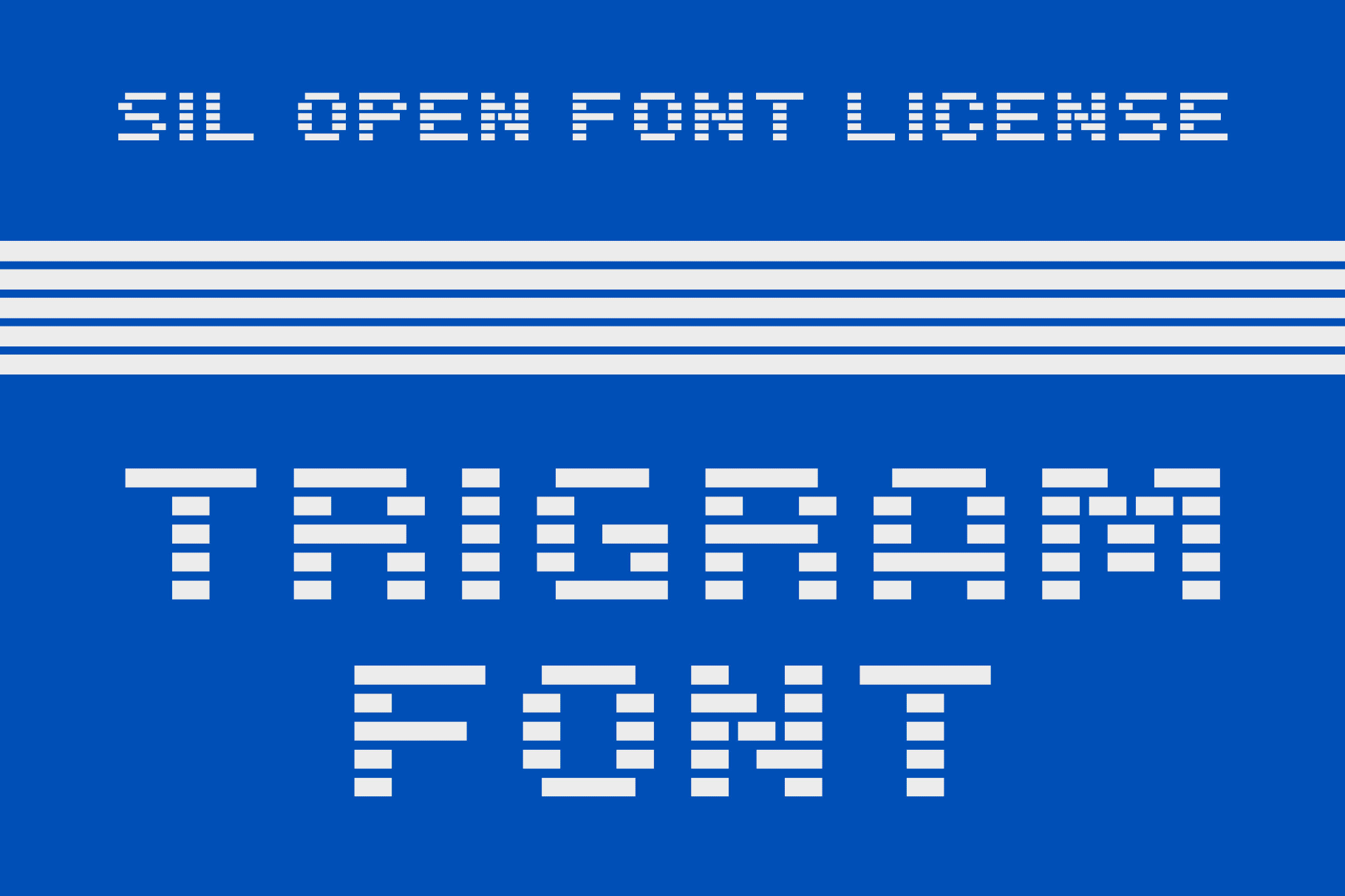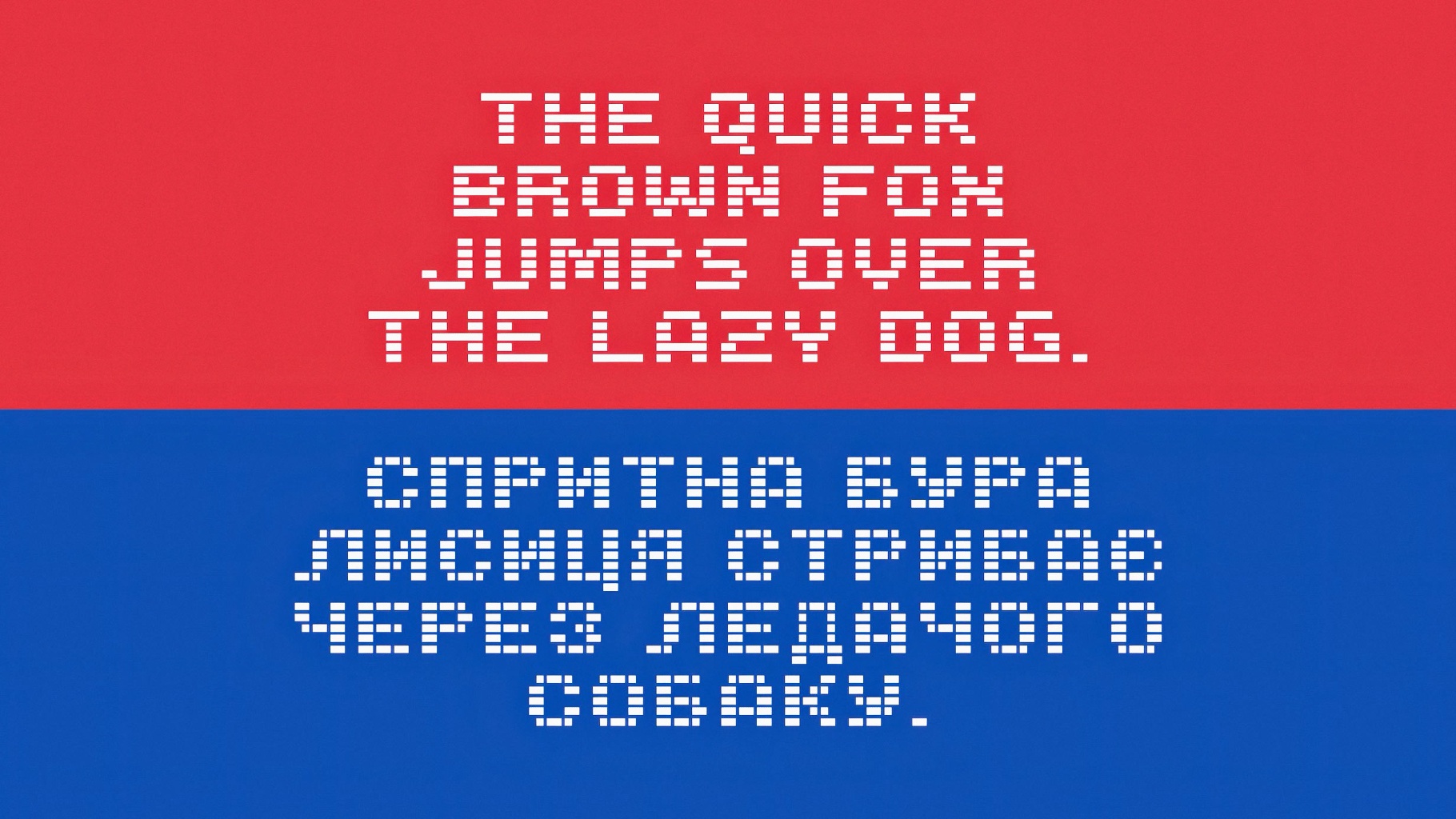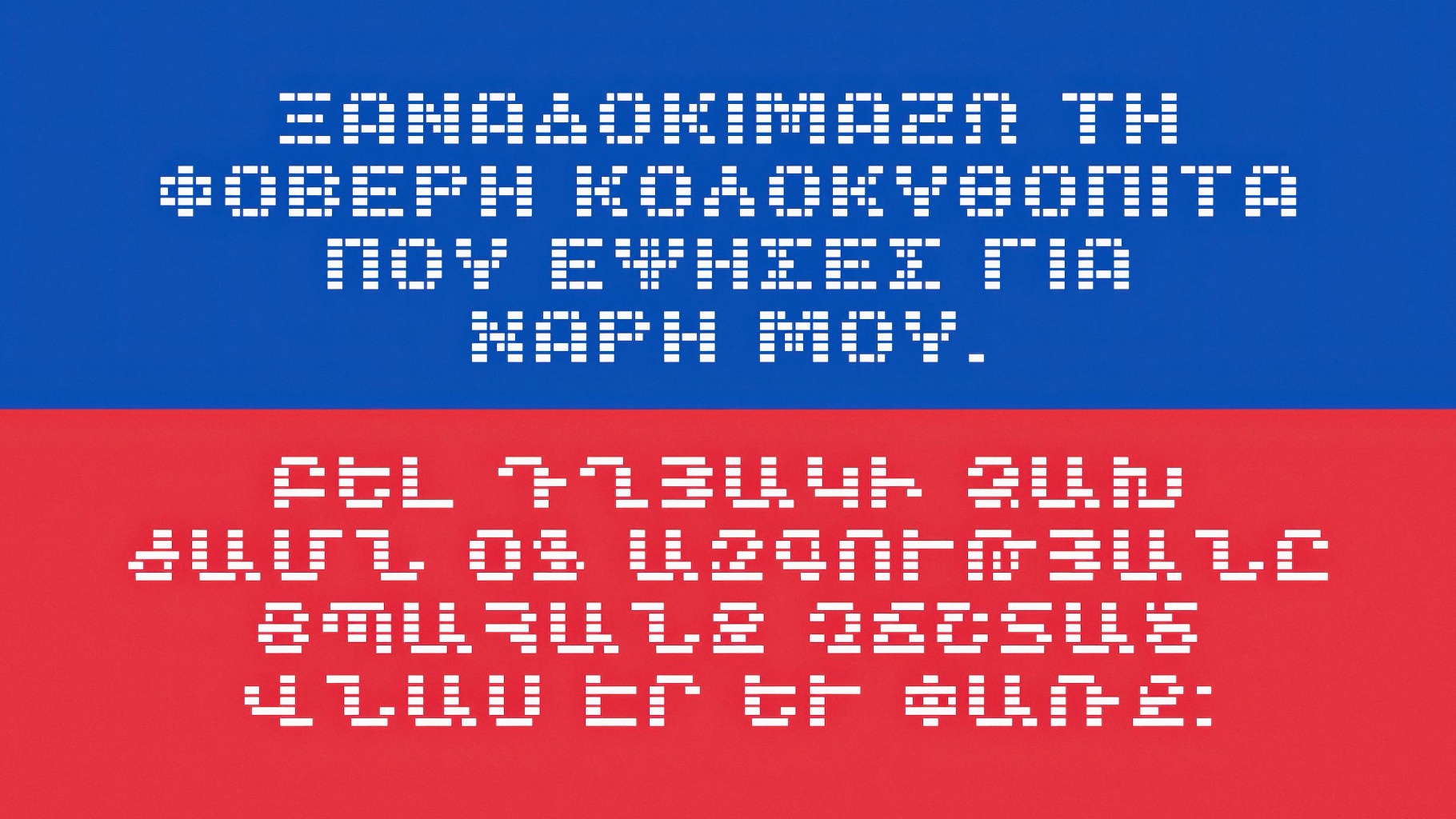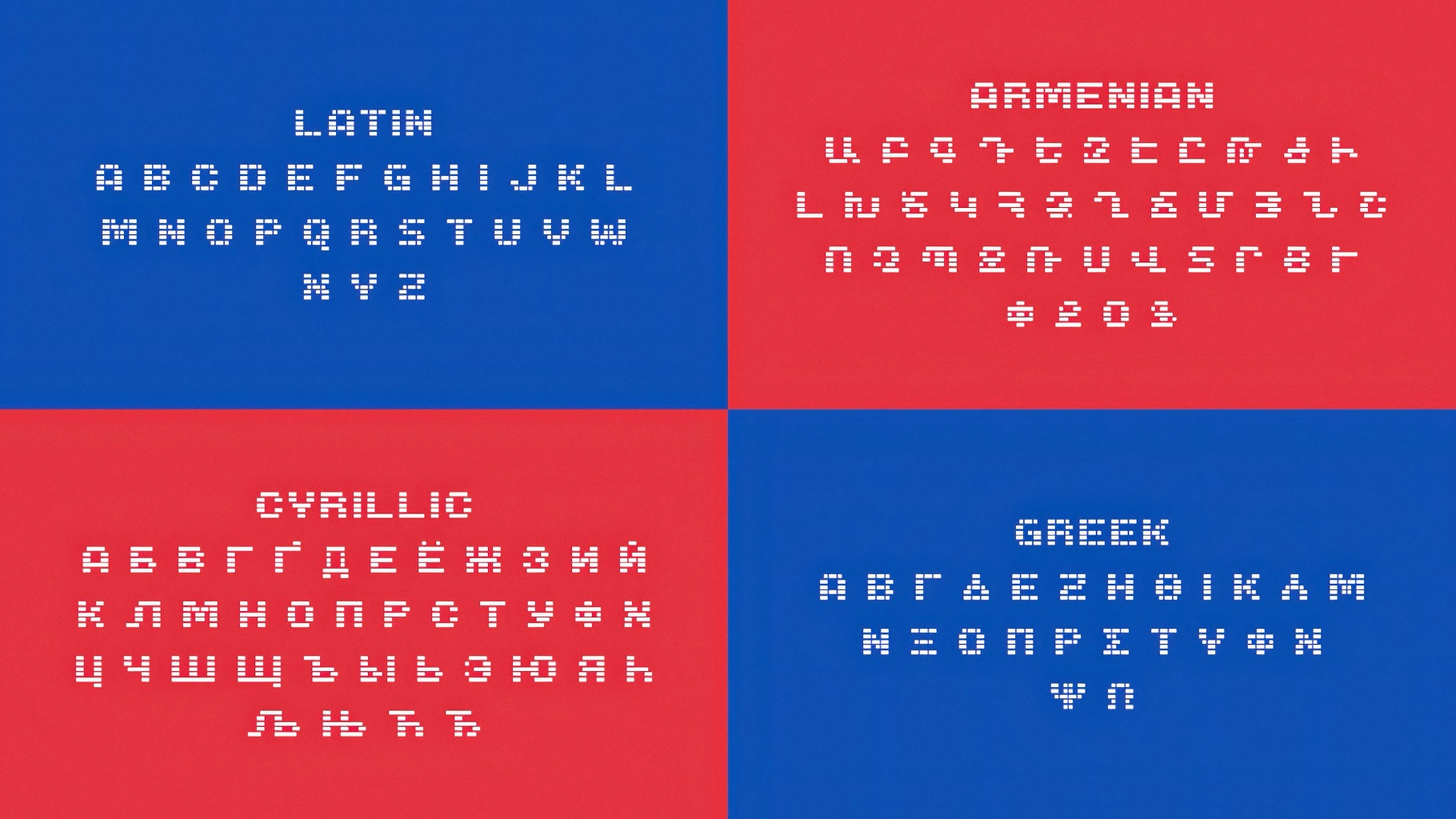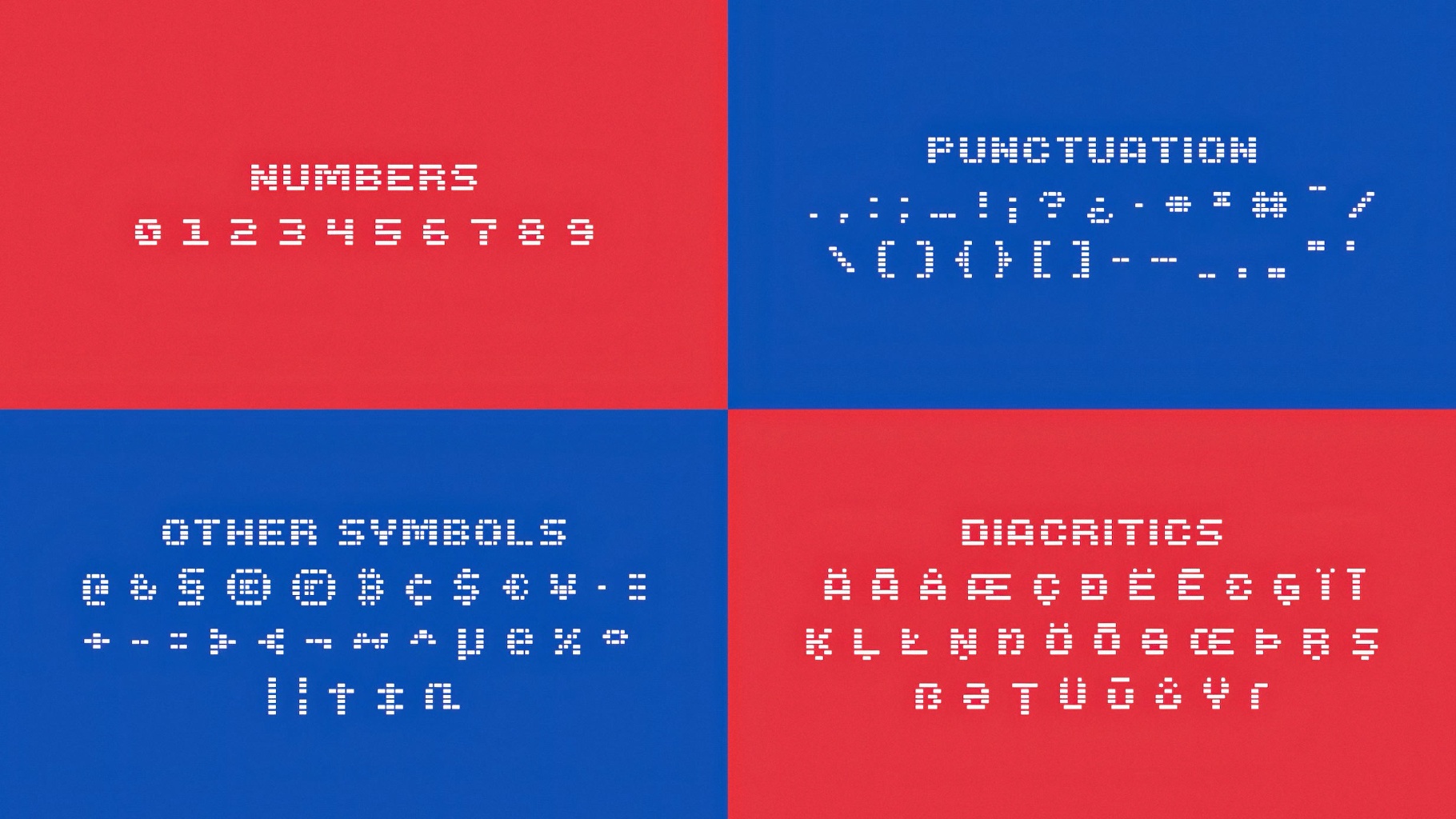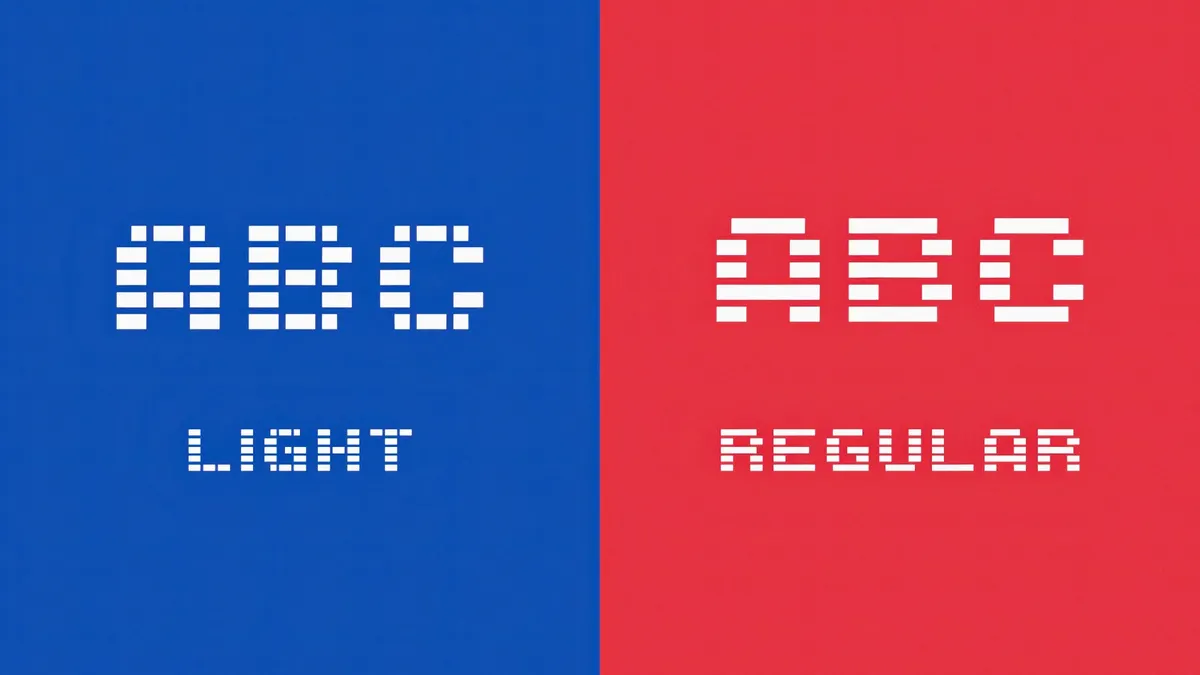
Trigram Font
The architectural letters of a techno Trigram are built from fractured geometry and sharp diagonals. They evoke early-’90s cybernetics album sleeves and abstract symbol systems from experimental graphic design.
The font's well-suited to Y2K-flavoured posters, electronic music artwork, conceptual logos, motion titles, UI labels, HUD elements, game branding, editorial covers, and striking social visuals.
- Two styles: Regular and Light.
- Only uppercase letters.
- International characters with multilingual support across extended Latin, extended Cyrillic, Armenian, and Greek scripts.
- Basic support for mathematical symbols and metrics.